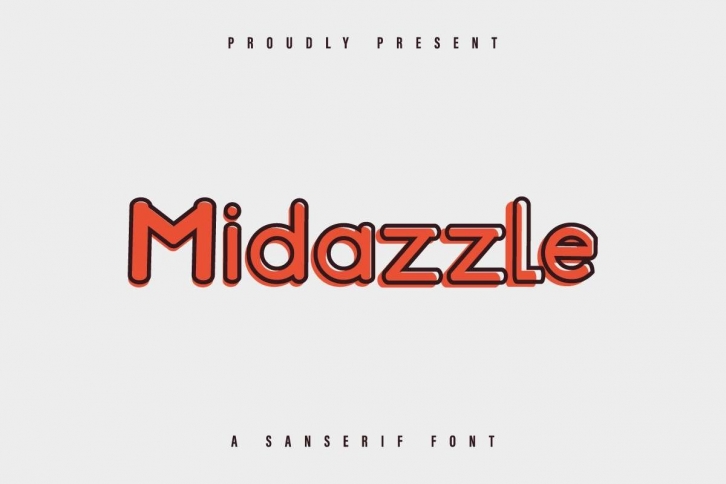
Midazzle is a gorgeous font that was realeased on July 7, 2020. The font can be used in many style contexts and design environments. Perfect for invitations, magazines, websites, logos, and more! It was designed by EdricStudio and the file size is 13.22 MB. Thanks for checking out this font!